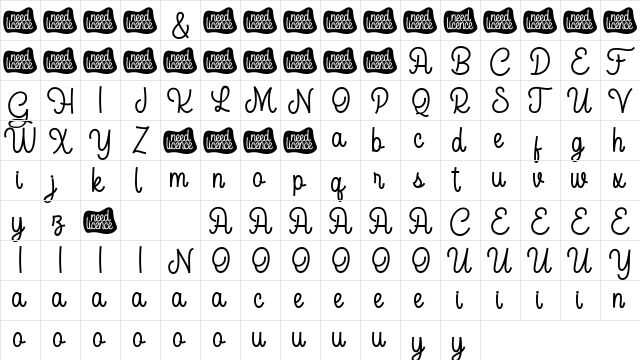
AcapelaDEMO Regular
| Designer | Holis Majid |
Design Context for AcapelaDEMO Typeface
AcapelaDEMO is a composed and adaptable typeface that performs quietly and consistently across a wide range of design contexts.